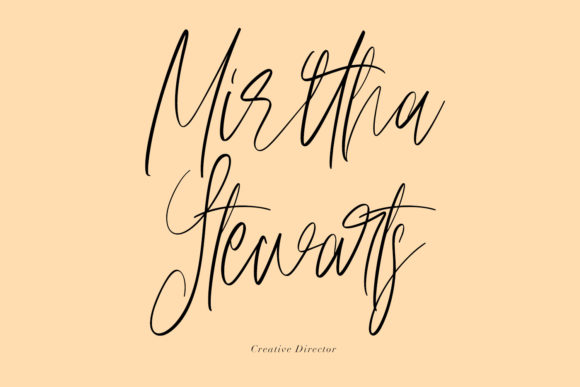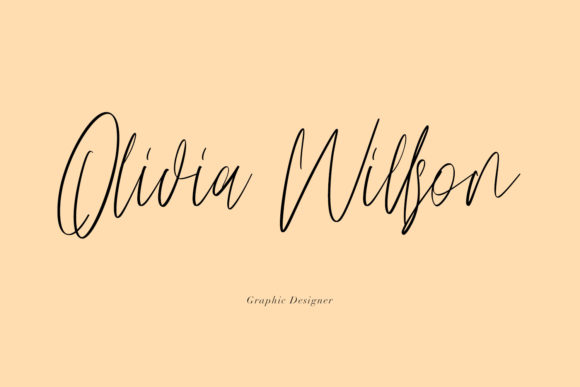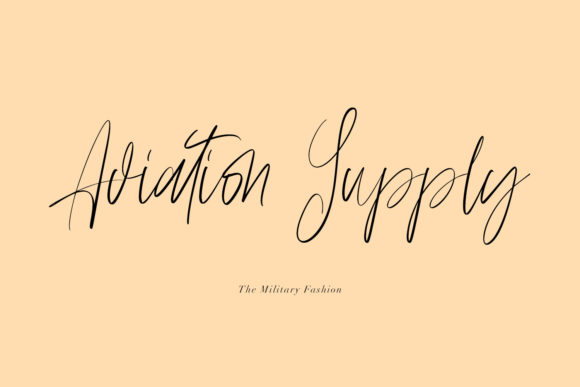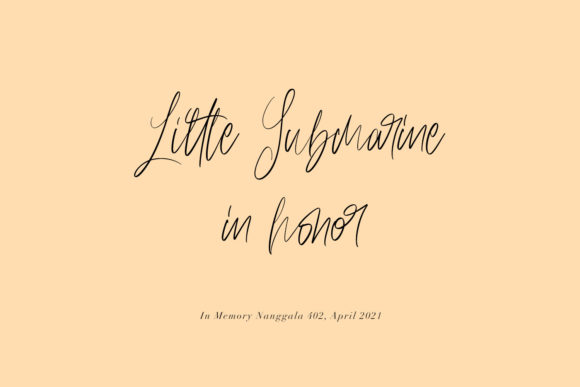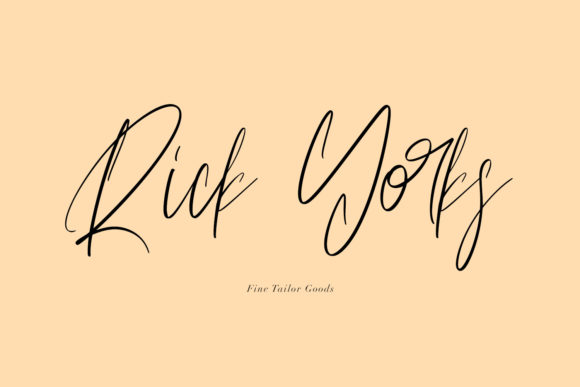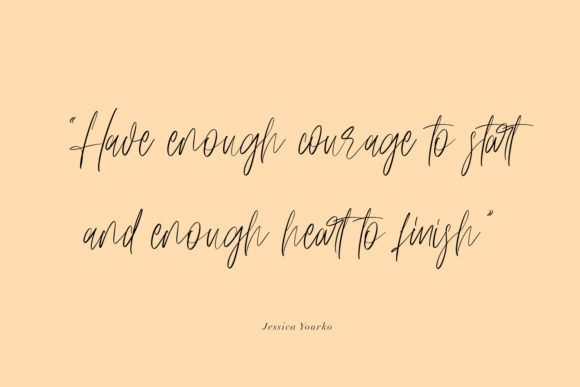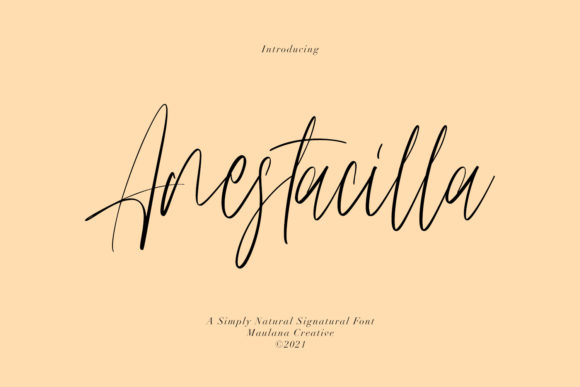
The Designer’s Delight: Anestacilla Font
I’ll never forget the moment I stumbled upon the Anestacilla font. I was working on a luxury branding project for a high-end jewelry client, and I was struggling to find the perfect font to match their sophisticated style. The design needed to exude elegance, refinement, and a touch of glamour. That’s when I discovered Anestacilla, a beautiful, stylish, and neat handwritten font that instantly caught my attention.
As I explored the font, I fell in love with its incredibly versatile style, which seemed to adapt seamlessly to various design contexts. I knew right then that Anestacilla was going to be a game-changer for my design projects, and I’m excited to share my experience with you.
An Honest Review of Anestacilla Font
• 💫 Luxurious and sophisticated feel, perfect for high-end branding and designs
• ✅ Exceptional legibility, even at smaller font sizes
• 🎨 Highly versatile, suitable for a wide range of design projects, from logos to social media graphics
• 💥 Unique and creative flair, adding a touch of personality to any design
• ⚠️ Some characters may require manual kerning for optimal spacing
• 🤔 Limited availability of language support, mainly focused on English and European languages
The Story Behind Anestacilla Font
Anestacilla was designed by a talented typographer who sought to create a font that exudes luxury and sophistication. Inspired by classic calligraphy and modern handwriting, Anestacilla combines the best of both worlds to create a truly unique and versatile font.
Q: What type of projects is Anestacilla best suited for?
A: Anestacilla is perfect for luxury branding, high-end editorials, and creative designs that require a touch of sophistication.
Q: Does Anestacilla support multiple languages?
A: Anestacilla primarily supports English and European languages, but it may not cover all languages.
Q: Can I use Anestacilla for personal projects?
A: Absolutely! Anestacilla is perfect for personal projects, such as invitations, social media graphics, and more.